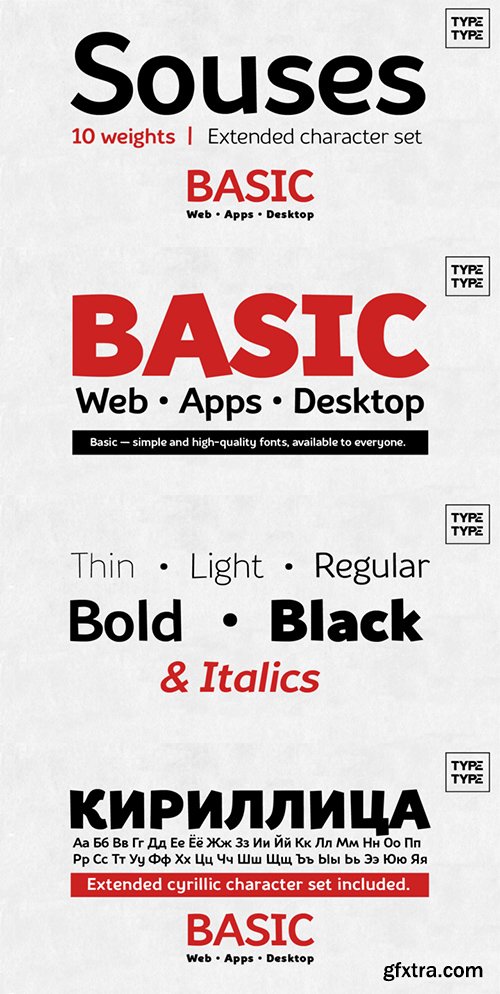
- Souses — original fonts, which are made by hand. There are a lot of areas for the application of fonts: the original “home made” web sites and applications for smart phones, original “village style” design materials and corporate identity, headers and pages of books in the children’s and no -serious style.Fontfamily Souses contains many languages and alphabets and is compatible with other TypeType fonts.